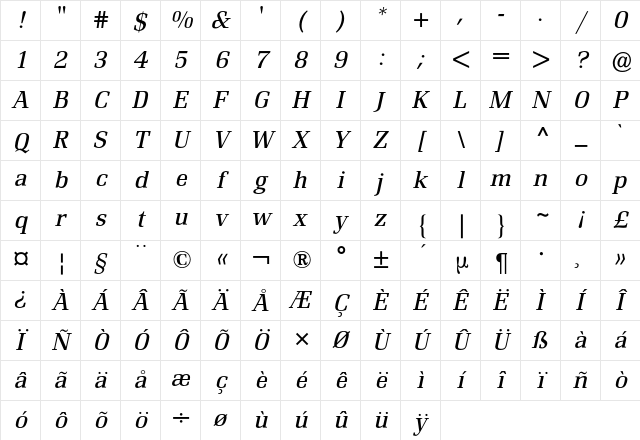
Renault BQ Regular
Renault BQ Family
Complete Renault BQ Regular glyph index. Displaying only characters natively supported by Renault BQ Regular font.
Design Context for Renault BQ
Renault BQ is a composed and adaptable typeface that performs quietly and consistently across a wide range of design contexts.